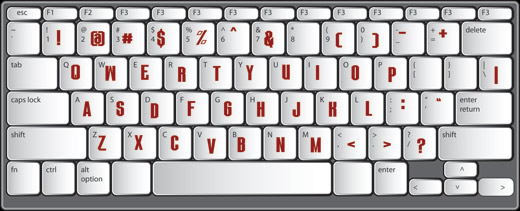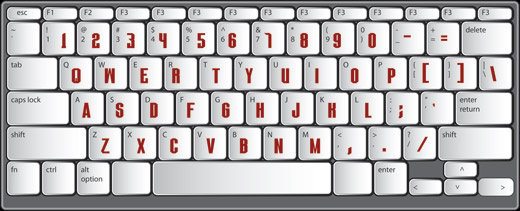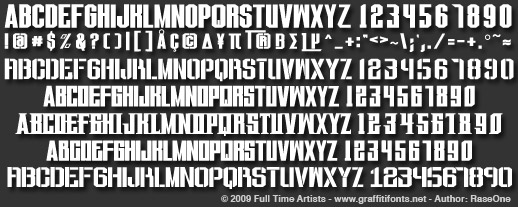
Tough Guy ™
This family of fonts offers a wide variety of styles. Strong, thick letters with a mechanical feel are presented in stencil & outline variations. These fonts work well at small & very large sizes.
The ToughGuy™ font family includes 6 styles:
• ToughGuy Standard
• ToughGuy Flat
• ToughGuy Round
• ToughGuy Serif
• ToughGuy Stencil
• ToughGuy Stencil Condensed